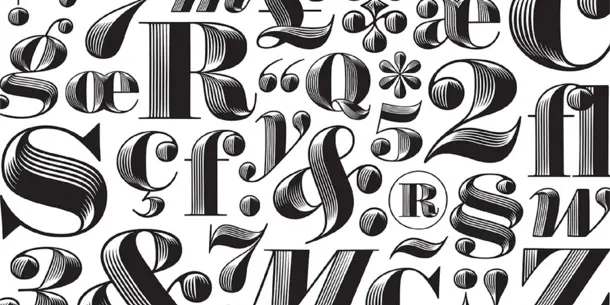
Monotype Announces the Acquisition of Iconic Type Foundry Hoefler&Co.
One of typography’s most beloved font libraries, the Hoefler&Co collection of more than 1,100 original typeface designs joins the Monotype family.
WOBURN, Mass., September 15, 2021 – Monotype today announced that it has acquired Hoefler&Co, the prominent type foundry based in New York City. Hoefler&Co is one of the most iconic names in type design, having designed the fonts that give voice to many of the world’s foremost institutions, publications, causes, and brands.
With the acquisition of Hoefler&Co, Monotype will expand its type library to include some of the world’s most popular typefaces including Gotham, Knockout, Mercury, Sentinel, Chronicle, Decimal, and Archer . Hoefler&Co designs will continue to be available through typography.com, and Monotype also plans to distribute the typefaces through its Monotype Fonts offering. Monotype Fonts combines the world’s largest collection of award-winning type, the expertise of the most sought-after foundries and type designers, and trusted and secure font management — all under a single agreement.
“In the world of type design, there are few names as well-regarded as Hoefler&Co,” said Monotype CEO, Ninan Chacko. “By adding Hoefler&Co’s premier library and design expertise, we can better serve the creative community through Monotype Fonts, while expanding on our mission to elevate the value of typography in driving commerce and culture.”
Hoefler&Co was founded in 1989 by Jonathan Hoefler, and quickly became one of the most prestigious type foundries in the world. Hoefler is the subject of an Emmy-nominated episode of the Netflix original documentary series Abstract: The Art of Design. President Barack Obama famously used Hoefler&Co’s Gotham as his campaign’s signature typeface, and both the Biden-Harris campaign and the Biden White House are defined by the Hoefler&Co typefaces Decimal and Mercury.
Jonathan Hoefler and Carleen Borsella, CEO of Hoefler&Co, will be taking this opportunity to step away from the company to explore new creative endeavors. “Monotype is unquestionably the right partner to help our work continue to grow, and meet the expanding needs of creative professionals in the years ahead,” said Hoefler. “For us, it was critical to partner with an organization that fundamentally believes in the value of type. Monotype is the most experienced foundry in the world, who today cares for many of the world’s most important typefaces, making them the natural home for the work we’ve created at Hoefler&Co.”
“In our conversations with Monotype, it’s always been clear that they understand the importance of type to both designers and brands,” adds Borsella. “Monotype is uniquely poised to meet the opportunities of the moment, and our team’s expertise and H&Co’s heritage will add tremendous value to Monotype. We look forward to seeing how both organizations come together to create new solutions for the creative community.”
Hoefler&Co’s body of work is both influential and pervasive, serving diverse brands such as Delta Air Lines and Tiffany & Co., publications such as Wired and The New York Times, institutions such as the Guggenheim Museum, The Public Theater, and New York University, and non-profit organizations including the Natural Resources Defense Council, The Peconic Land Trust, and the Southern Poverty Law Center.
The first type foundry ever to be honored by the National Design Awards at the White House, Hoefler&Co’s typefaces are in the permanent collections of both the Smithsonian Institution and the Museum of Modern Art in New York.